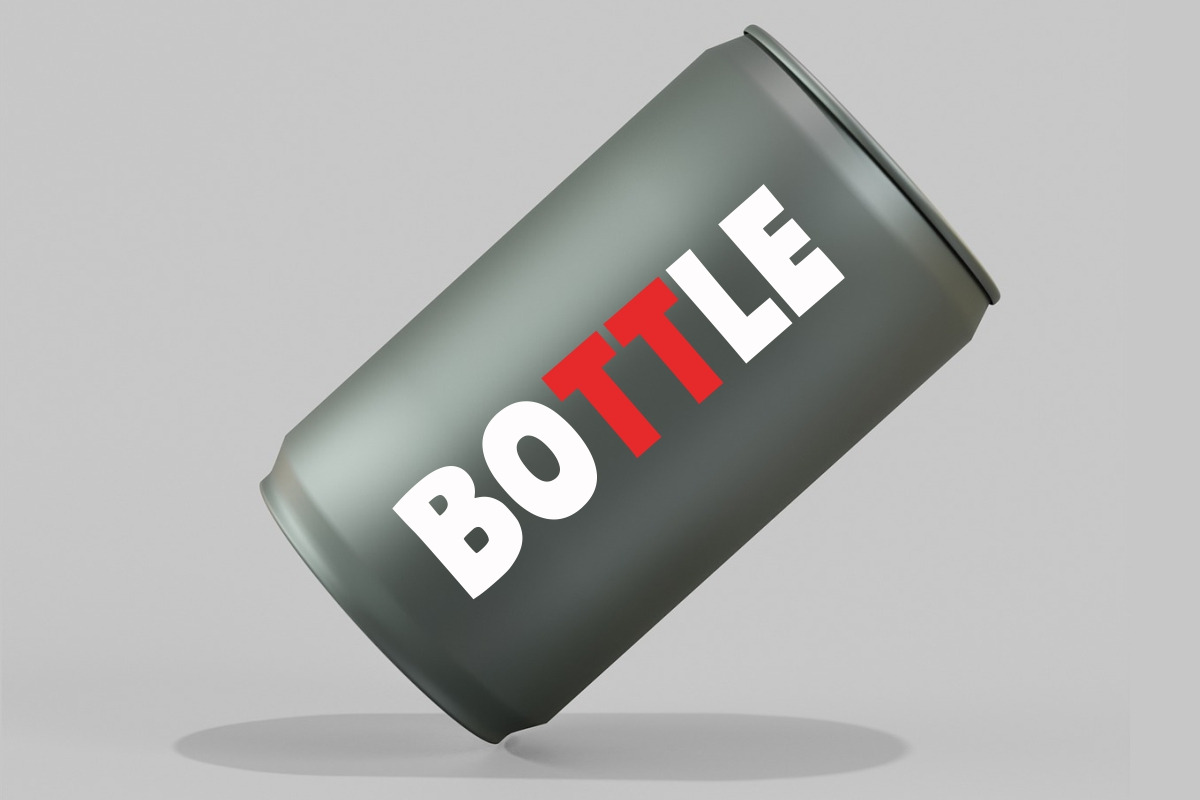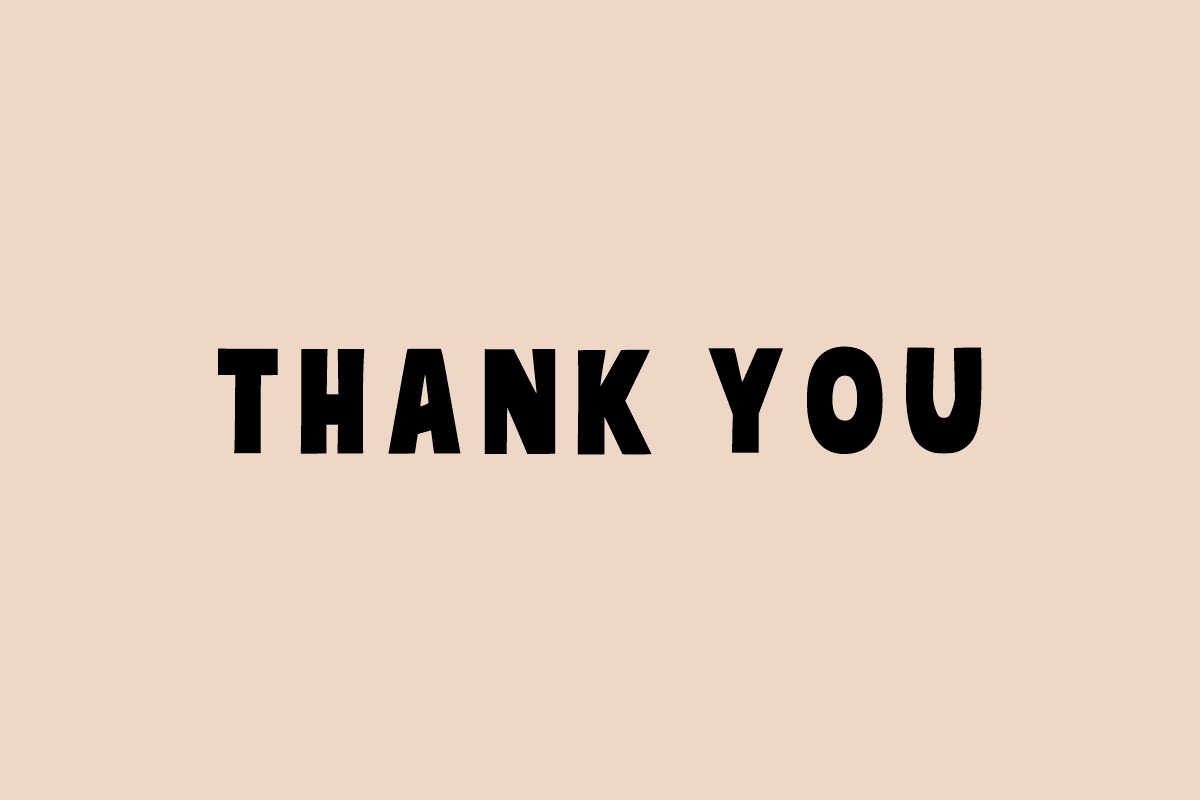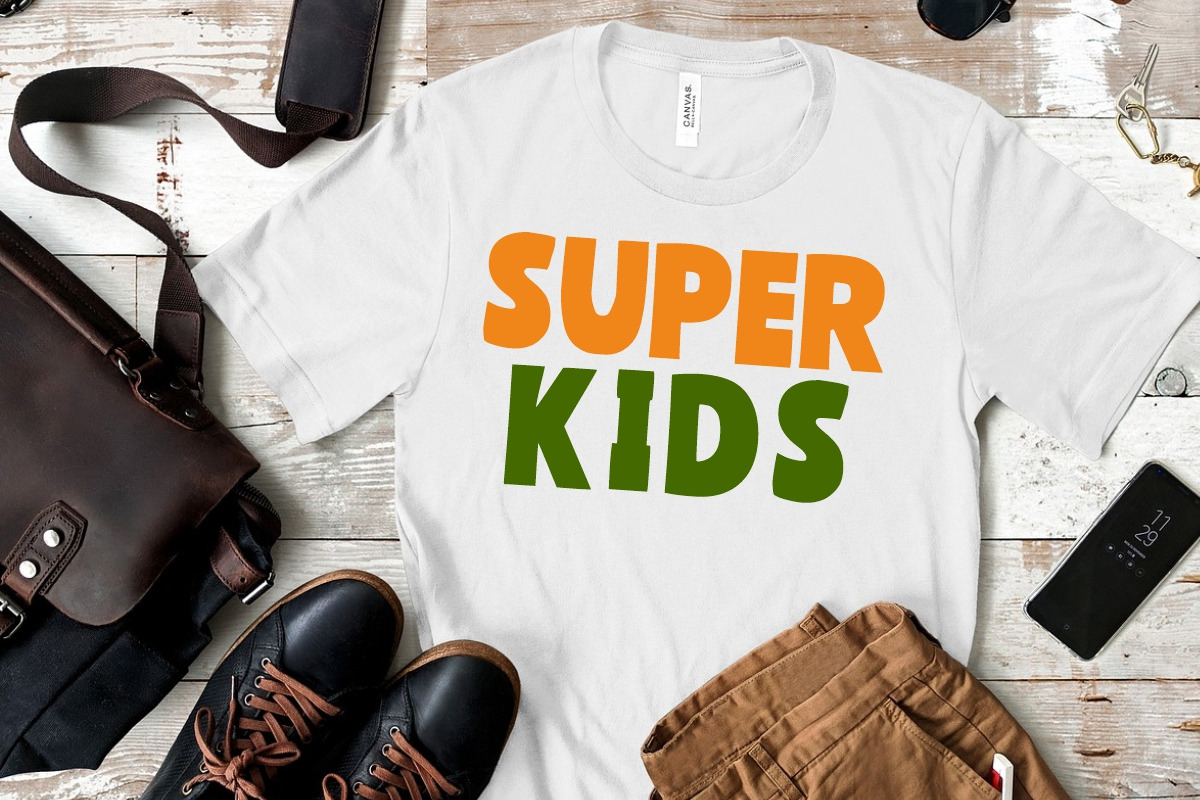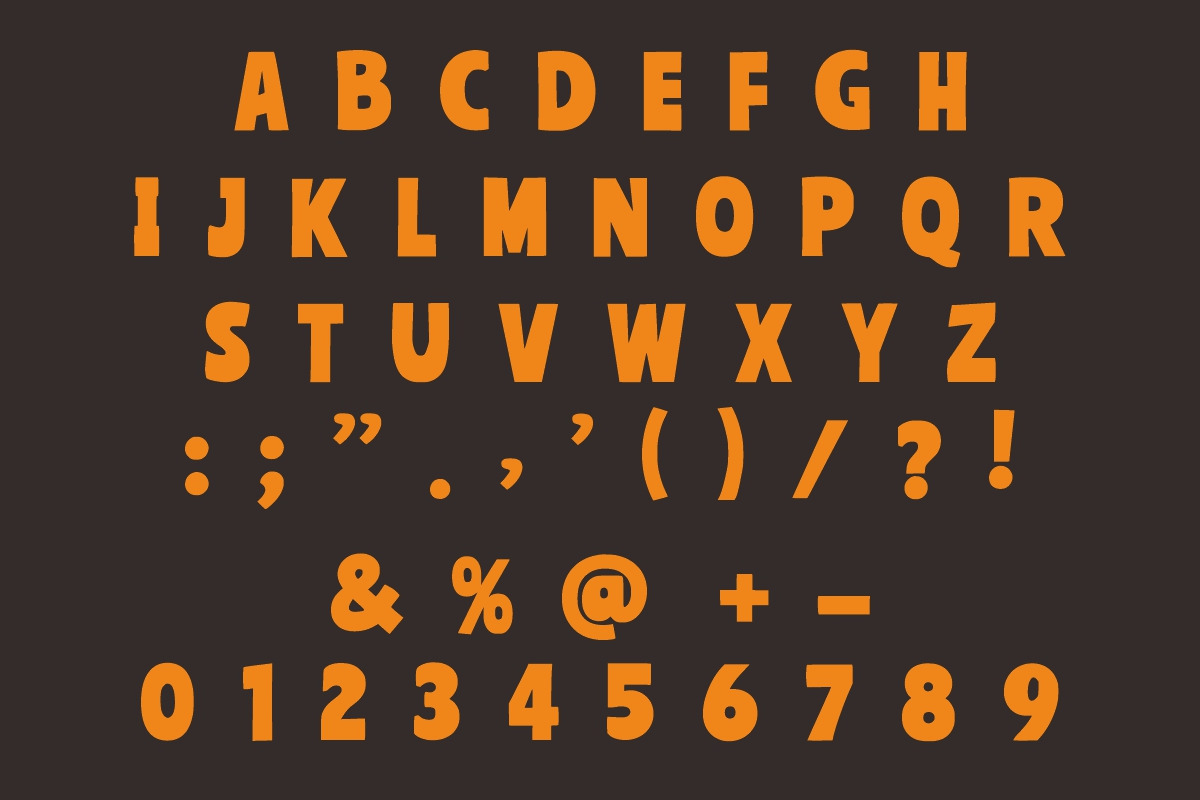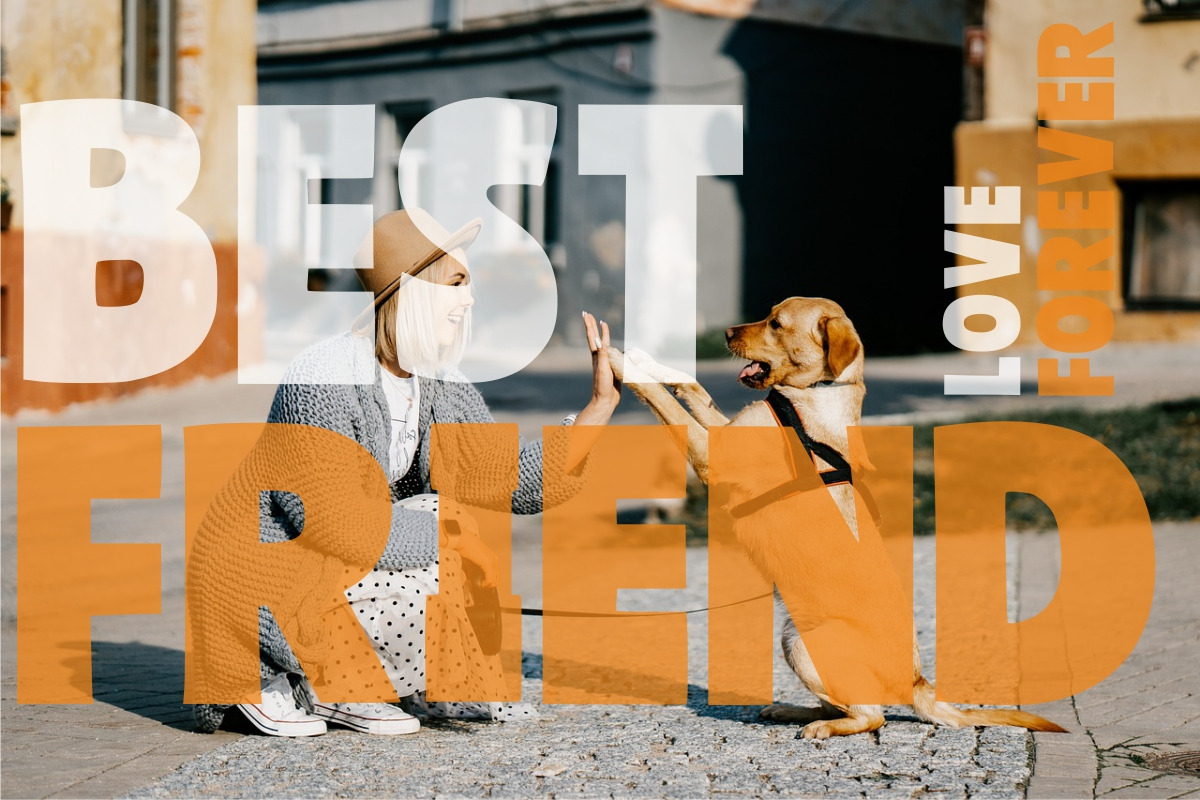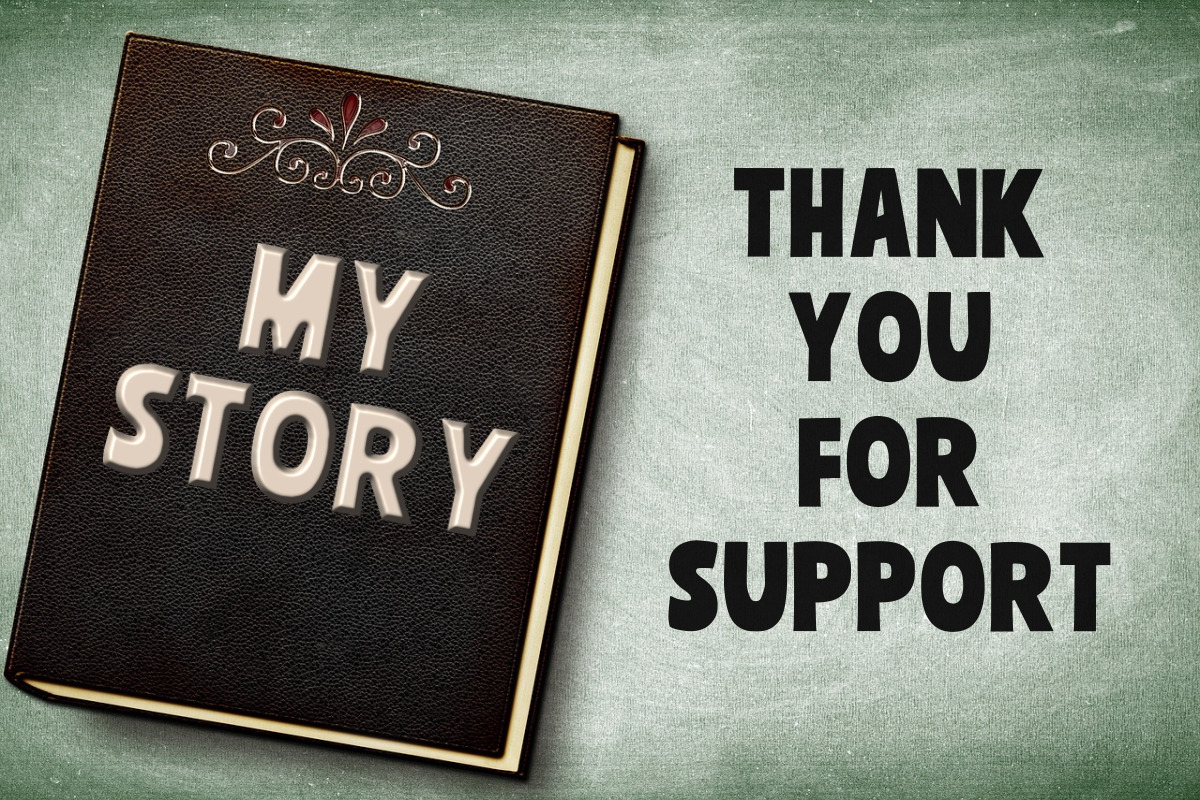
Start Zone
START ZONE is a Playfull, childish, Bold, easy-to-read display font that conveys impeccable friendliness. Whether you’re using it for crafts, digital design, presentations, or greeting cards, this font has the potential to become your favorite go-to font, no matter the occasion!